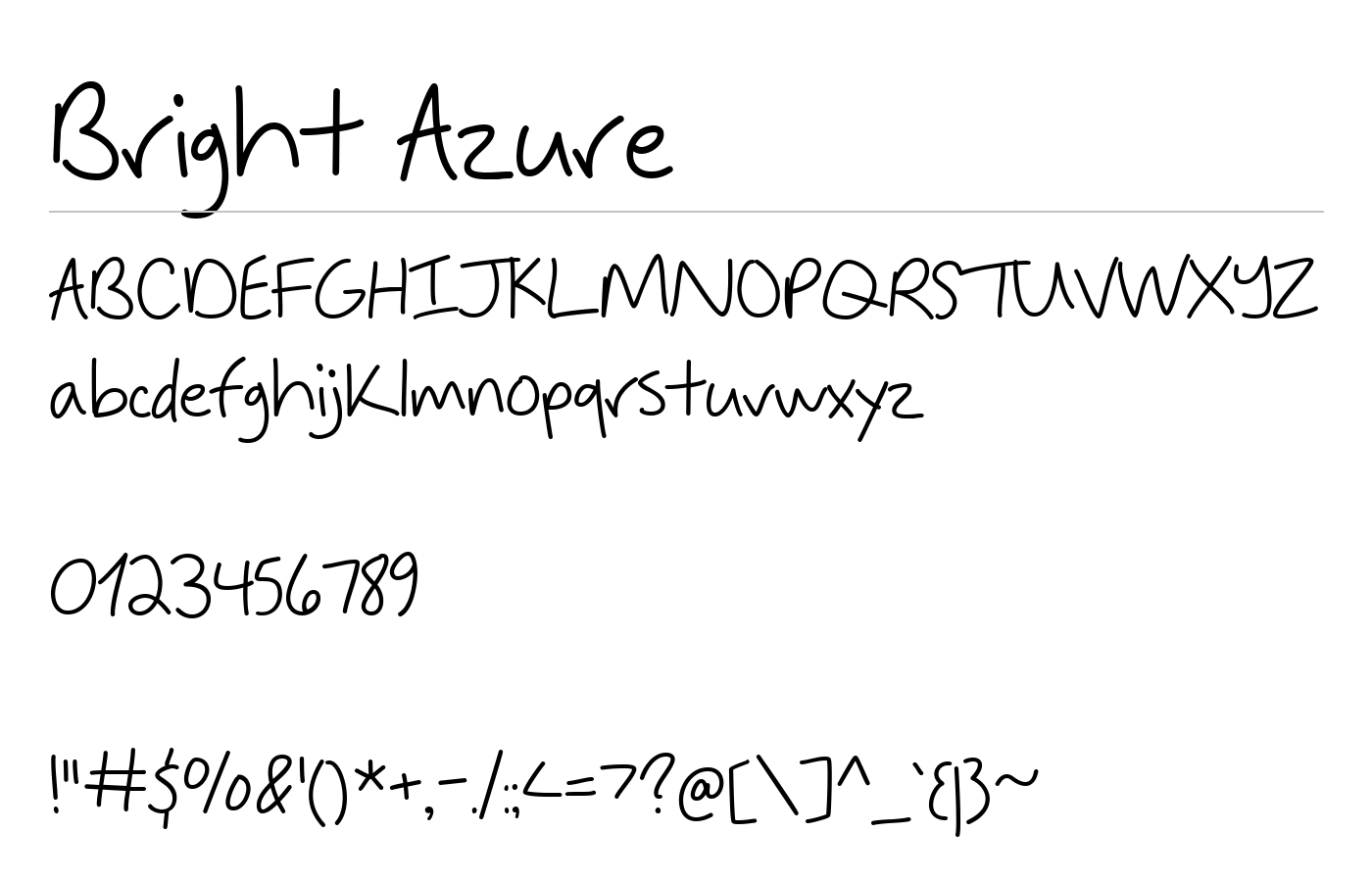
Bright Azure is a casual, handwritten sans serif font with a friendly and approachable feel. Its tall, narrow letterforms and irregular strokes create a natural, personal touch that works well for informal designs, creative projects, and playful branding. This font is ideal for logos, invitations, and social media where a warm, human vibe is desired.
Bright Azure Font
About Bright Azure Font